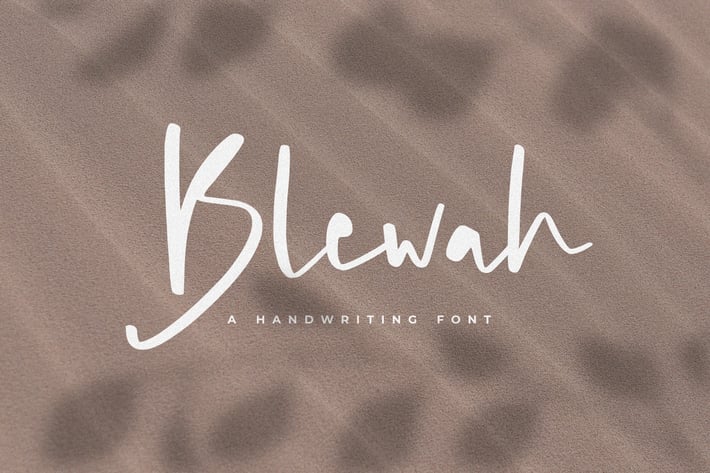
Blewah - A Handwriting Font
Blewah - A Handwriting Font. It comes with an elegant, cute and feminine style which is perfect to make any design stand out! This font is perfect for branding, wedding invites, magazines, mugs, business cards, quotes, posters, and more.
Blewah Type Features:
- Numerals & Punctuations
- Suitable for Headlines, Logotypes, Signs, Posters, Letterhead, T-Shirt and many more.
- Support Western Europe Language